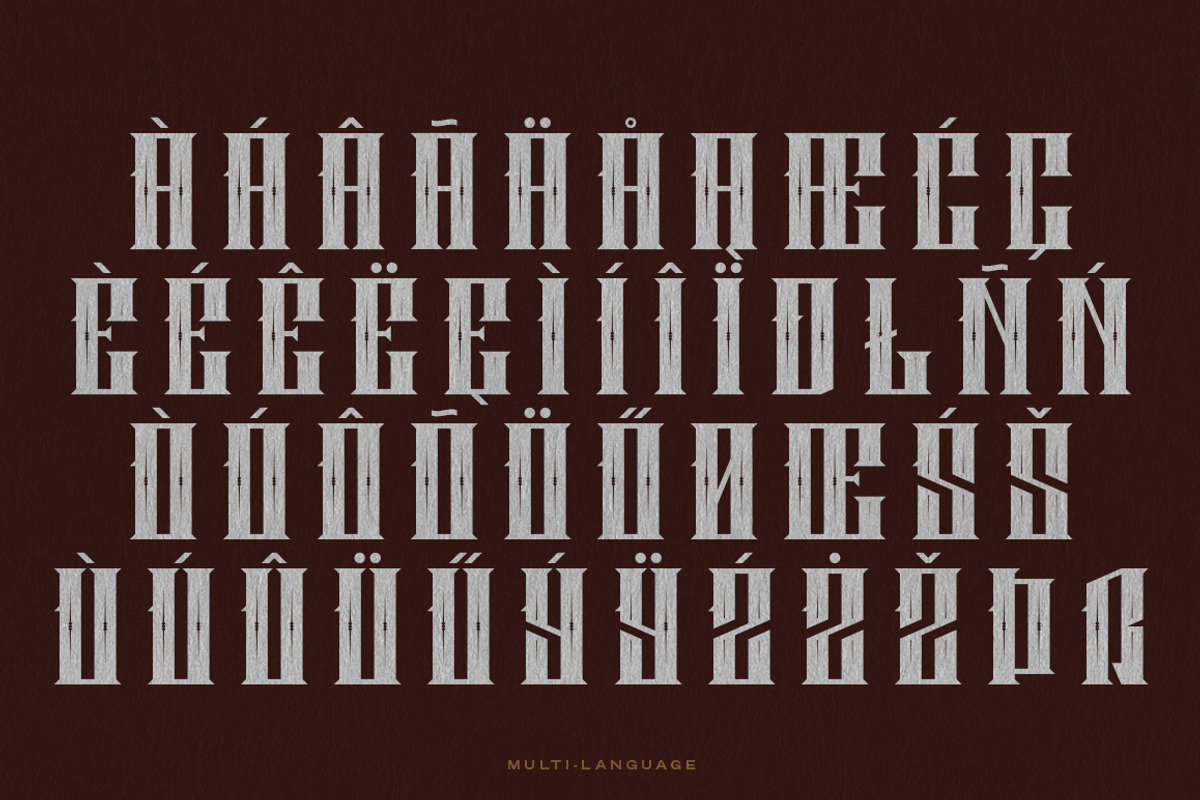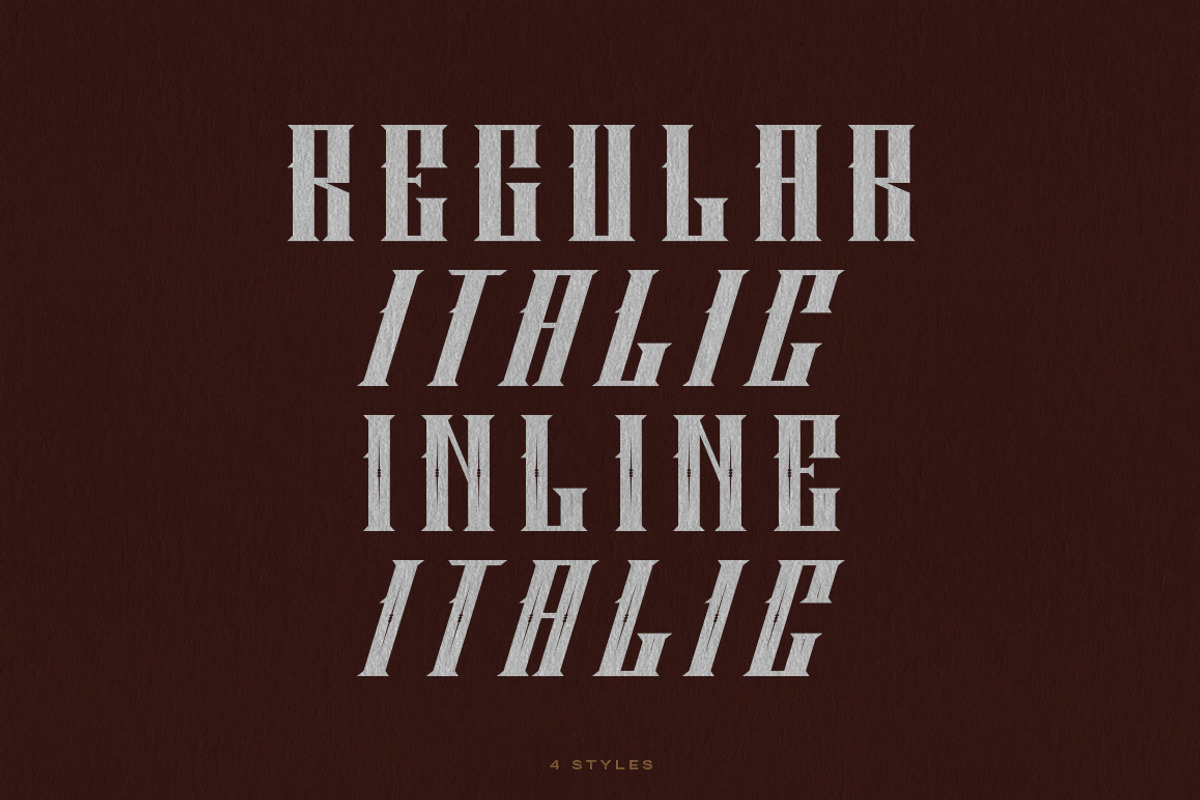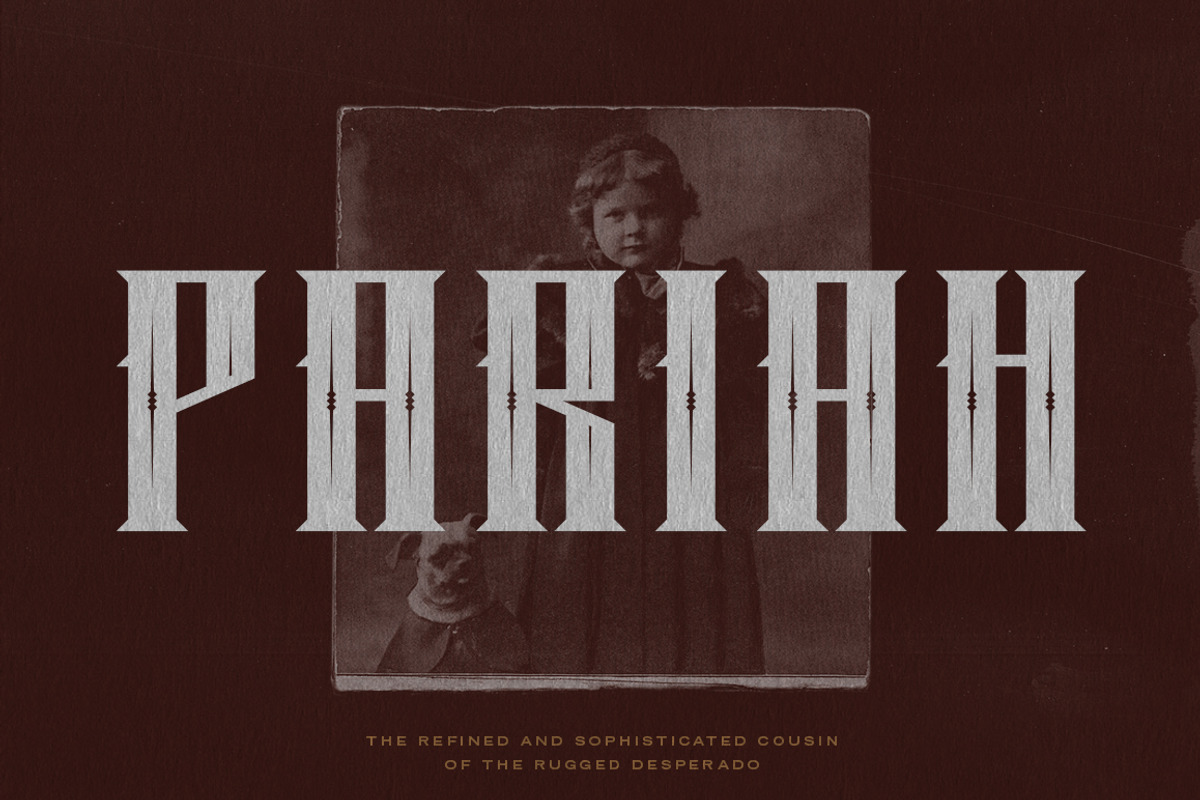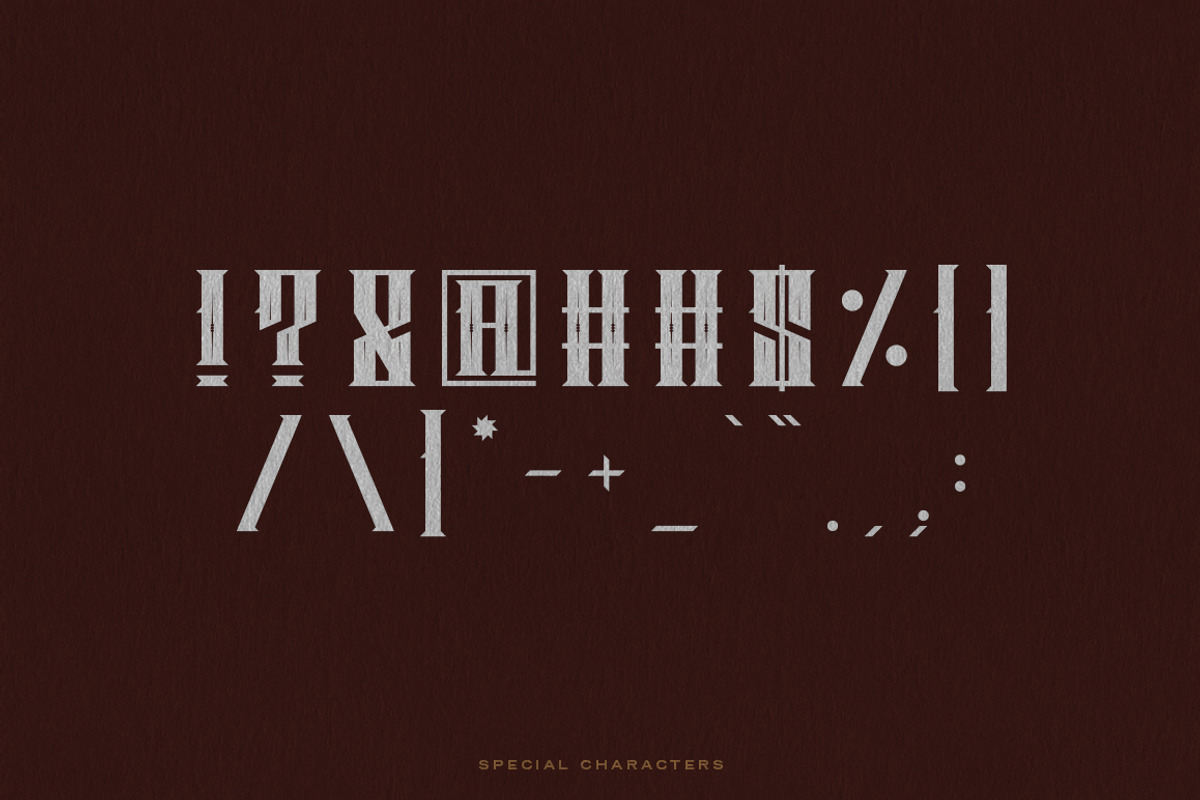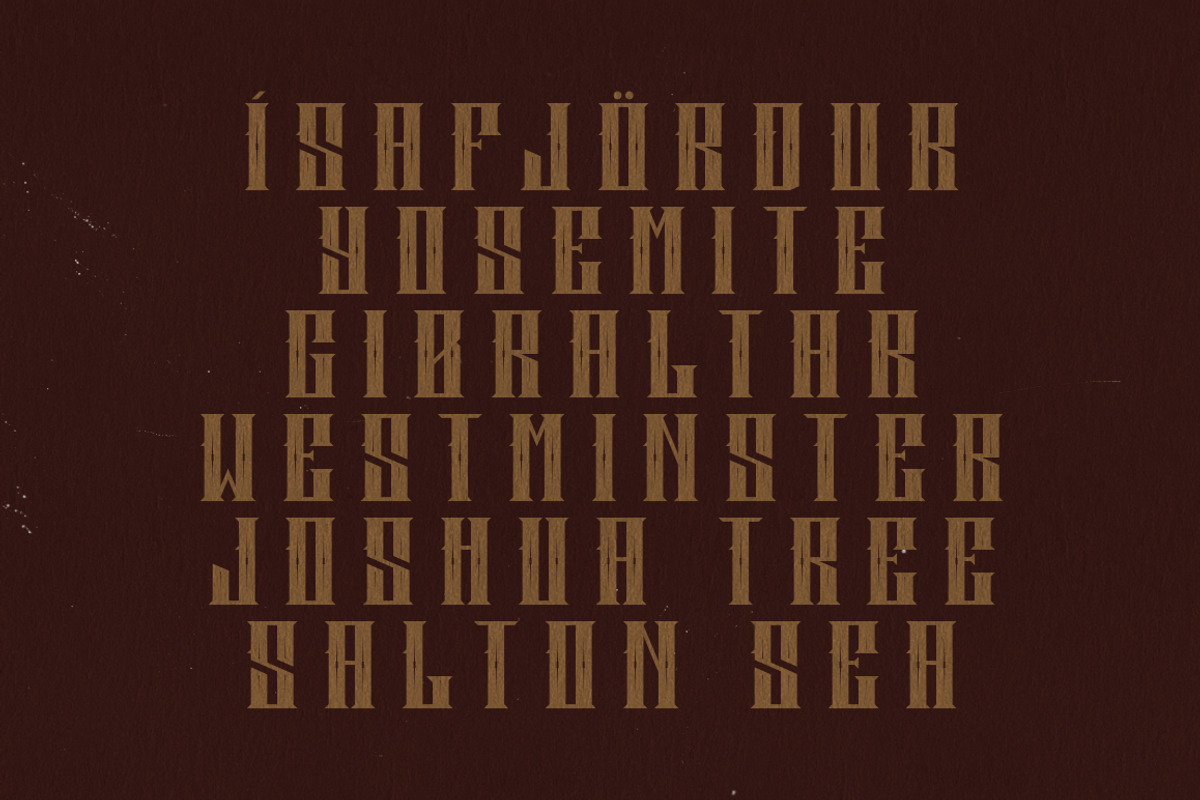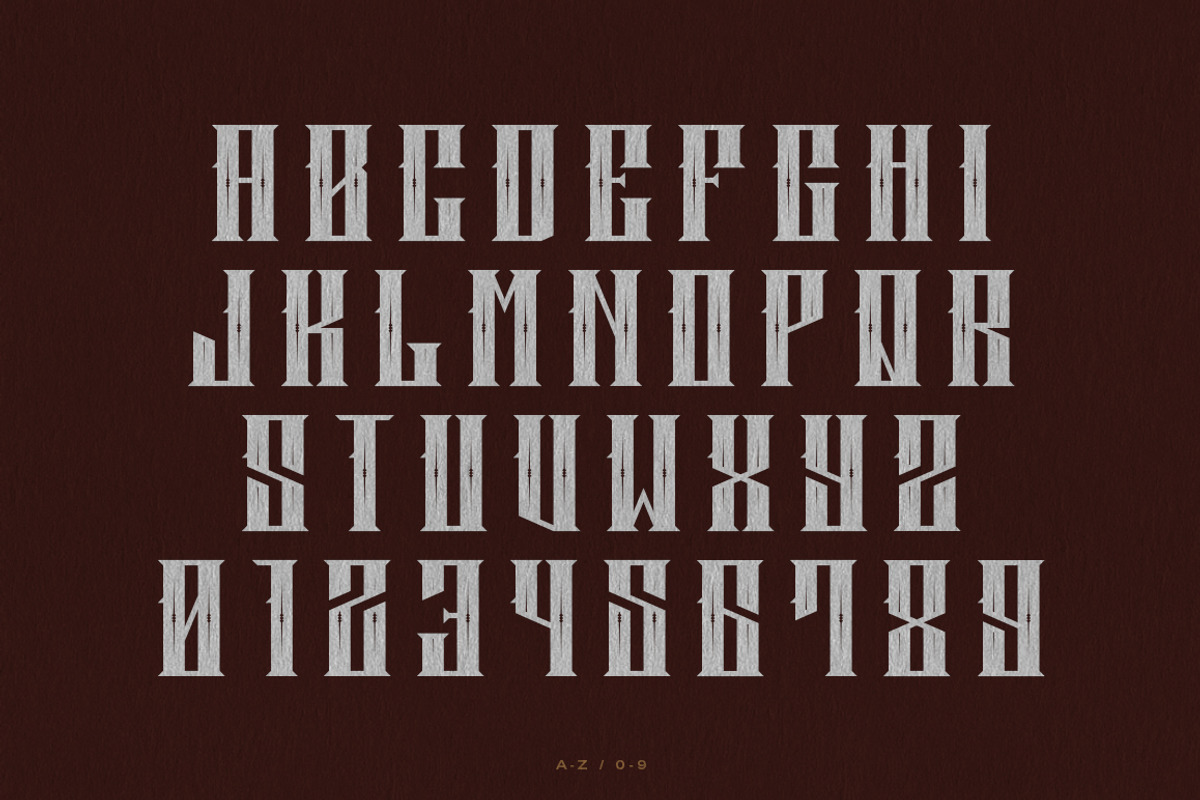
Pariah
Pariah, the refined and sophisticated cousin of the grungy Desperado.
- 4 weights: regular, italic, inline, inline italic
- A-Z, 0-9, special characters, accented characters for multi-language